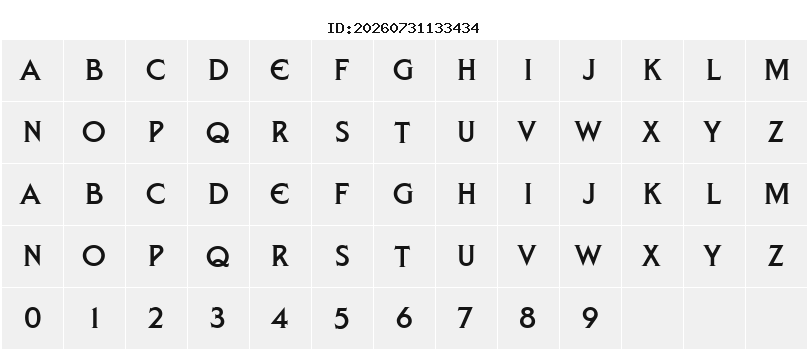
Liberty Preview
• Font Name: Liberty
• Full Font Name: Liberty
• PostScript Name: Liberty
About Liberty.ttf
Liberty.ttf is a modern, elegant sans-serif font designed for ultimate readability and visual harmony. Perfect for branding, headlines, web design, and print materials.